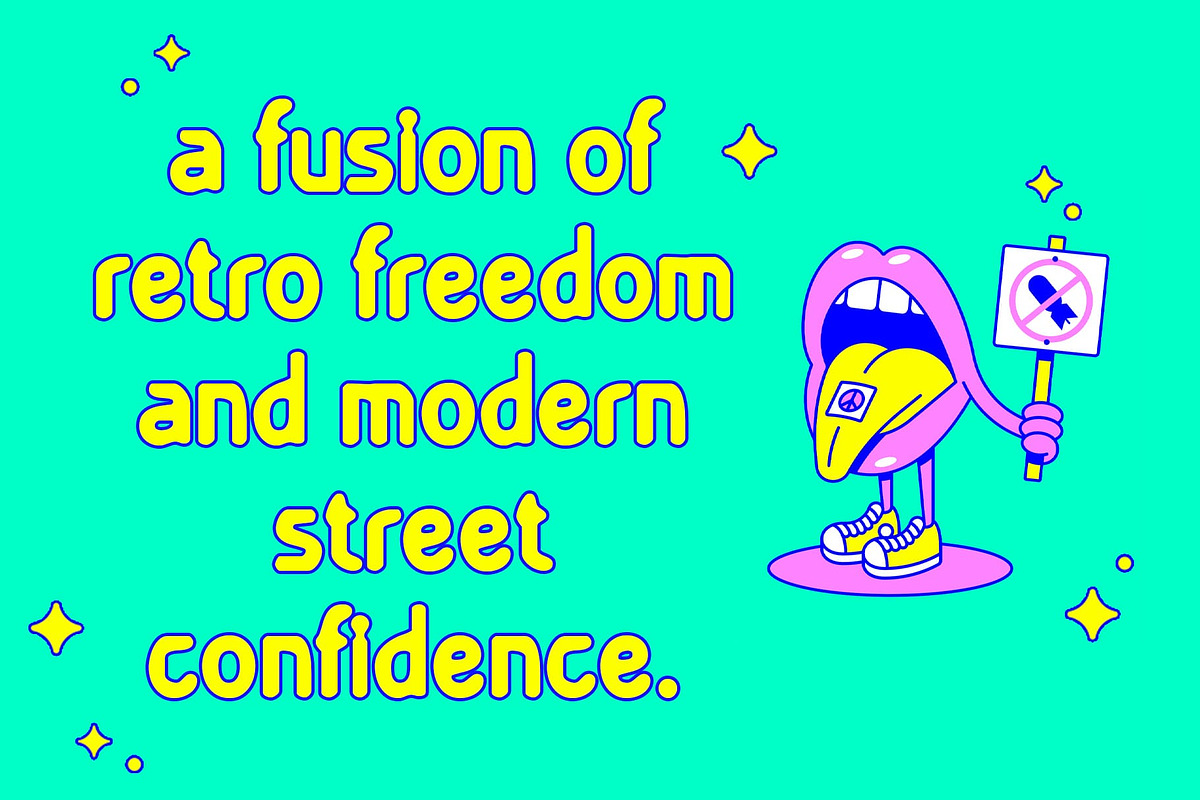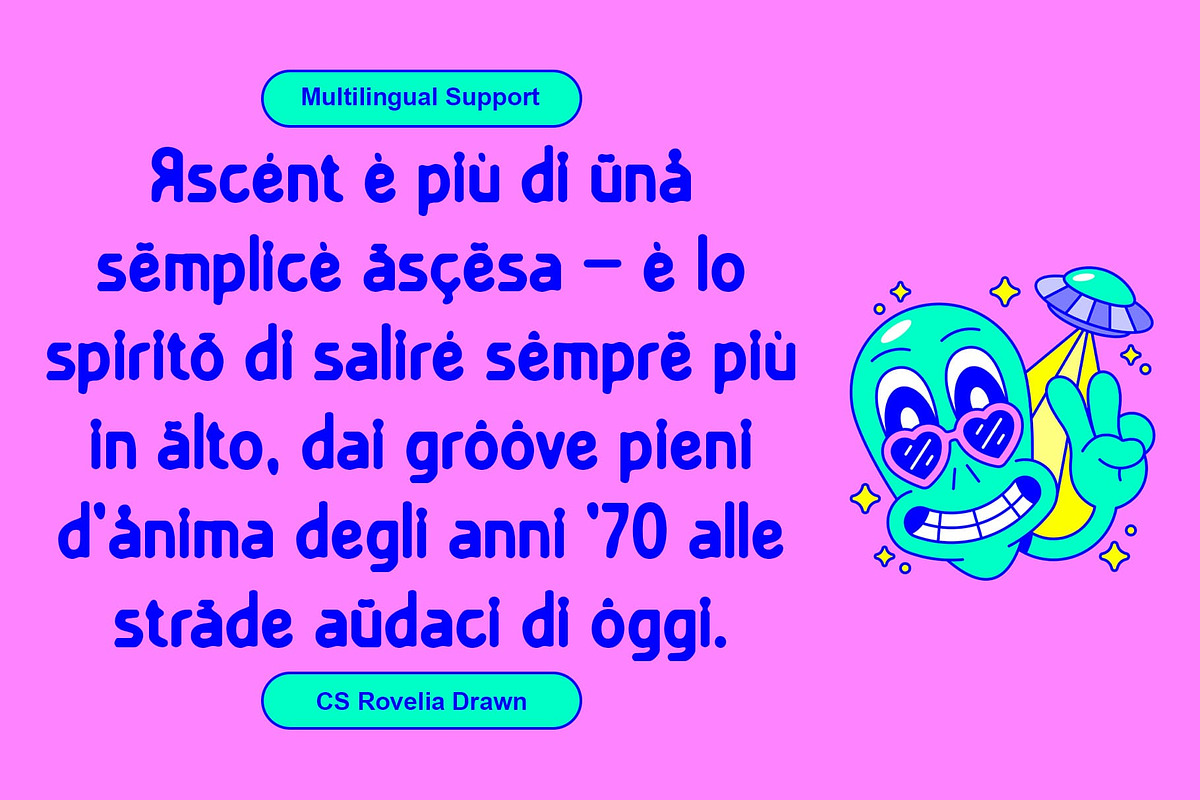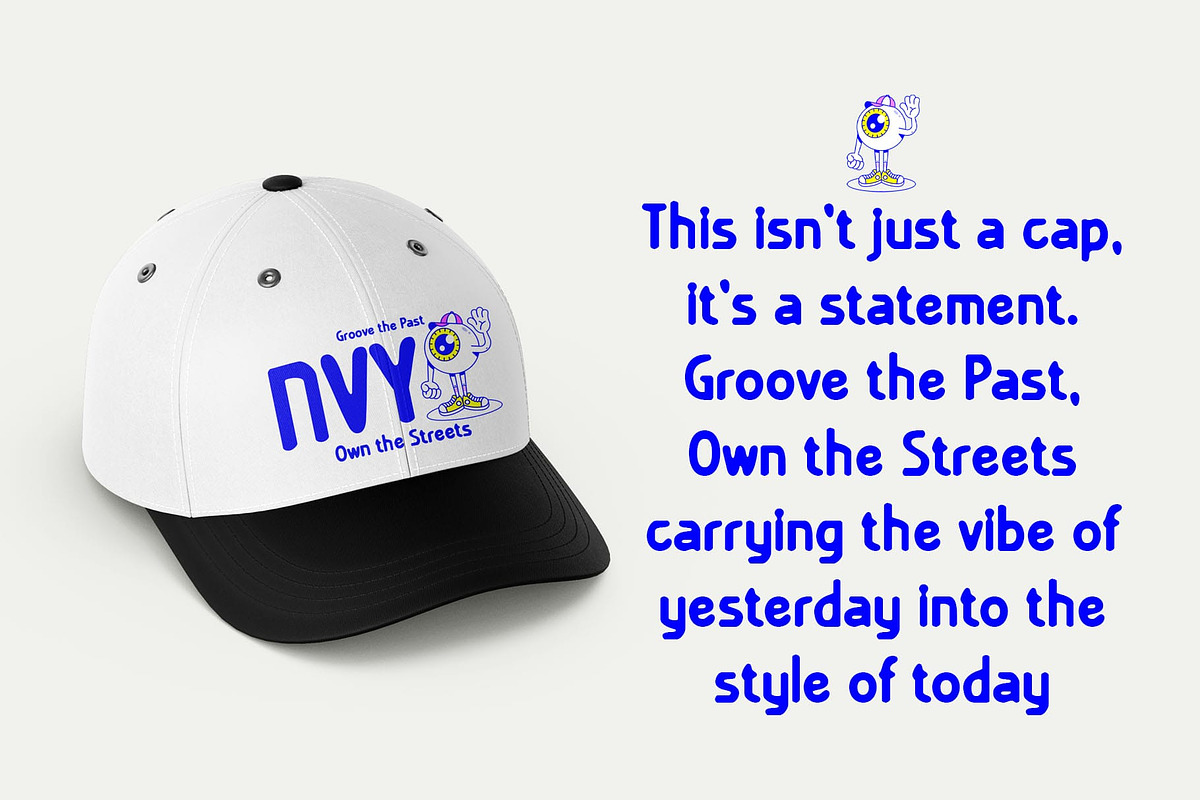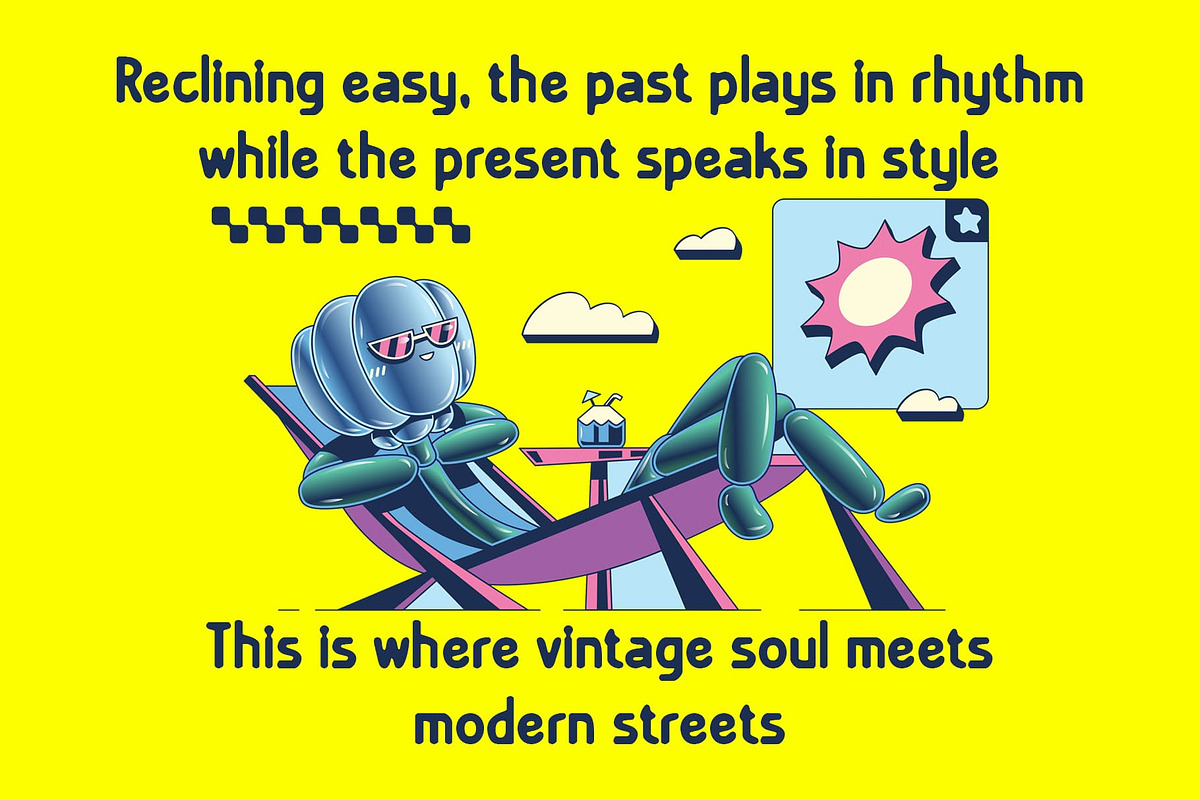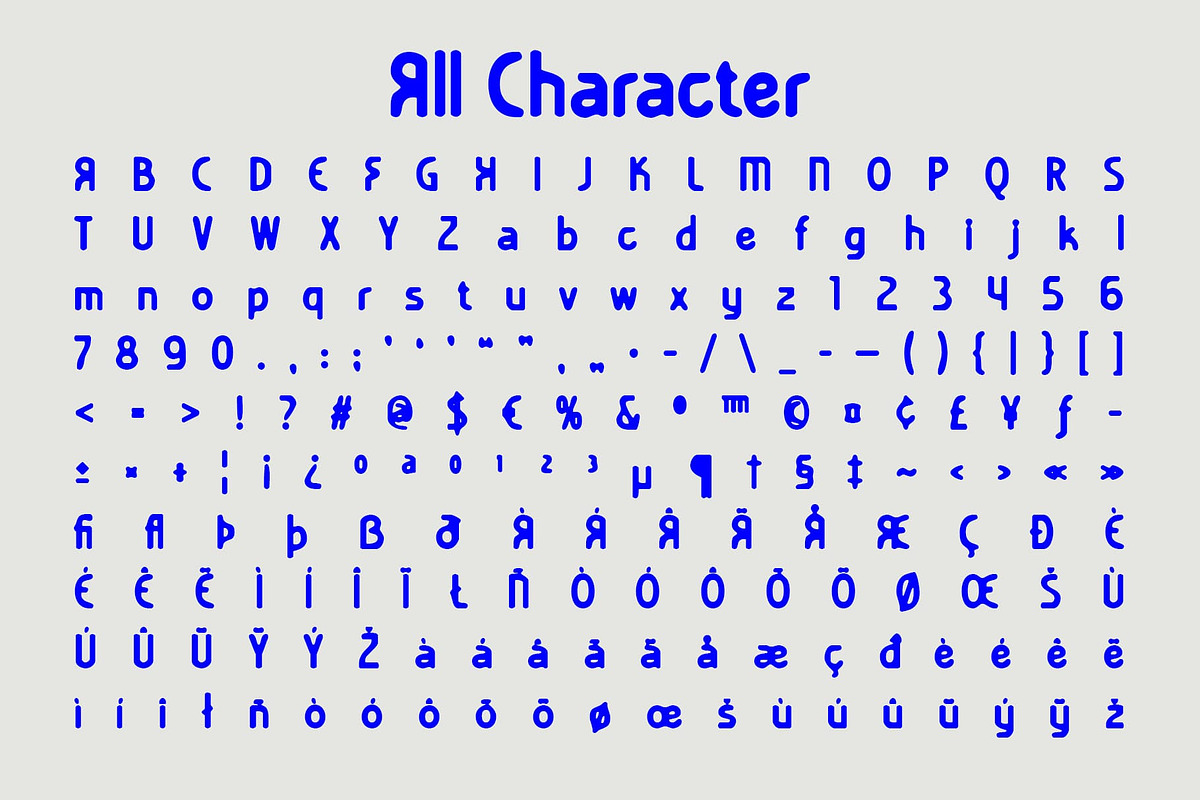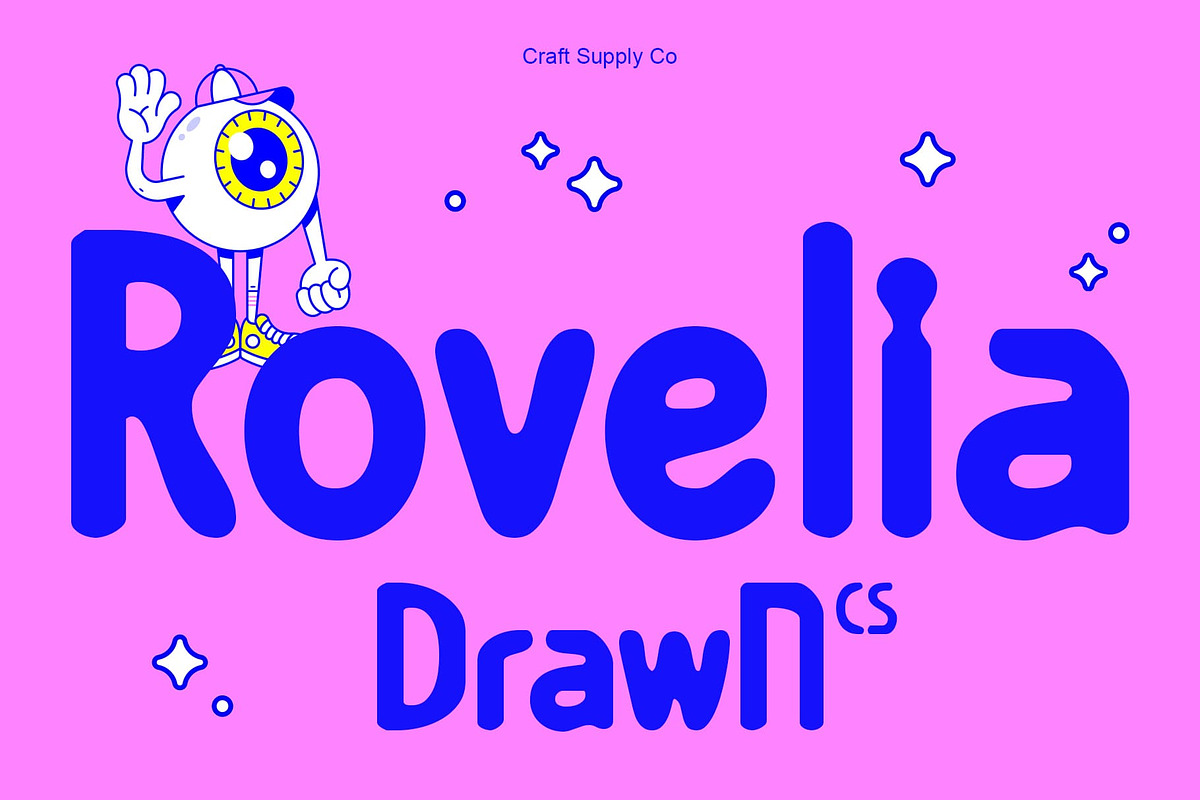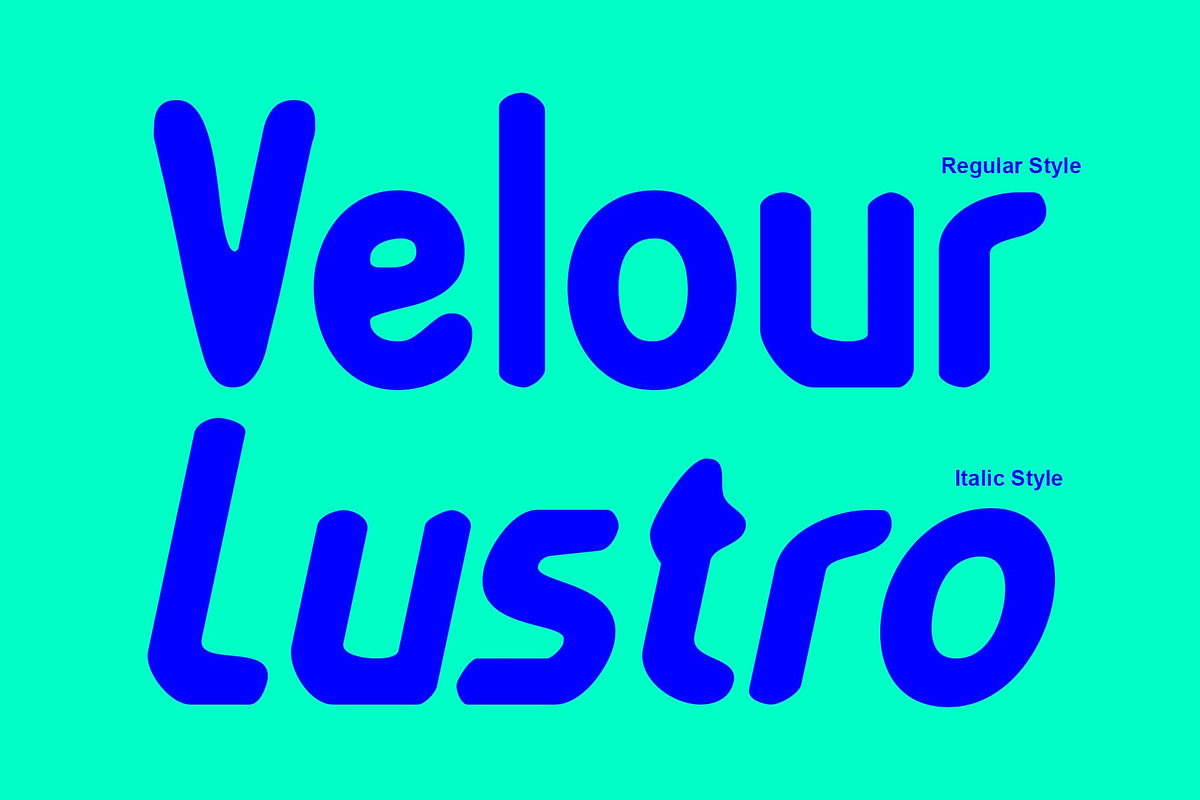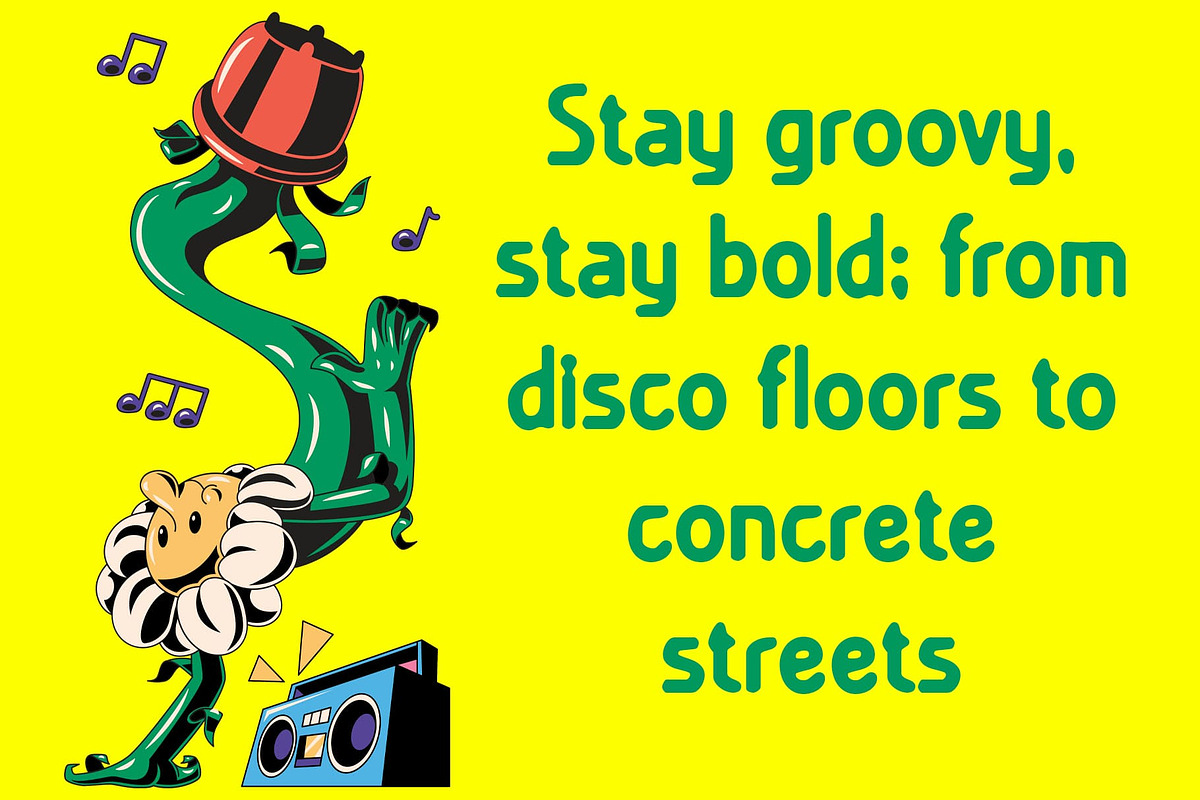
CS Rovelia Drawn
CS Rovelia Drawn: Where Modern Bold Meets Handmade Expression Modern Bold Sans Serif with Artistic Character This is a bold sans serif font designed with clean lines and a strong modern presence. Its confident structure communicates clarity and professionalism, while the bold weight ensures impactful visibility. Perfect for display purposes, it blends simplicity with visual strength, making it a versatile tool for any designer. Hand-Drawn Texture for Depth and Personality What sets apart is its handmade drawn effect. This subtle texture adds warmth, depth, and individuality to the otherwise sleek sans serif form. Each character feels expressive and alive, giving the font a crafted personality that elevates it beyond digital perfection. Balancing Sophistication with Casual Style This font masterfully balances a sleek, casual aesthetic with refined sophistication. Its bold forms remain approachable, making it equally suitable for professional branding and relaxed editorial work. The result is a font that adapts seamlessly to multiple design contexts without losing its unique charm. Perfect for Branding, Posters, and Editorial Design From striking logos to bold poster headlines and stylish editorial layouts, thrives in projects where creativity meets professionalism. Its combination of bold clarity and artistic flair makes it a reliable choice for brands, creatives, and designers aiming to capture attention with both power and personality. Download Type Speciment: --- What you get : - CS Rovelia Drawn Regular - CS Rovelia Drawn Italic Features : - Uppercase and lowercase characters - Numerals and Punctuation (OpenType Standard) - Accents (Supports Multilingual Characters) - PUA Encoding --- You can use this typeface without needing any specialized software. --- If you have any inquiries or need assistance, please feel free to contact us. We appreciate your support in enhancing your creative projects! Best regards, Craft Supply Co.